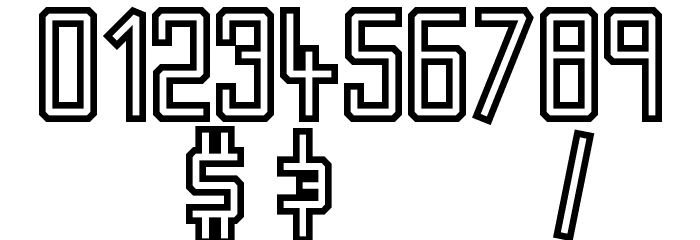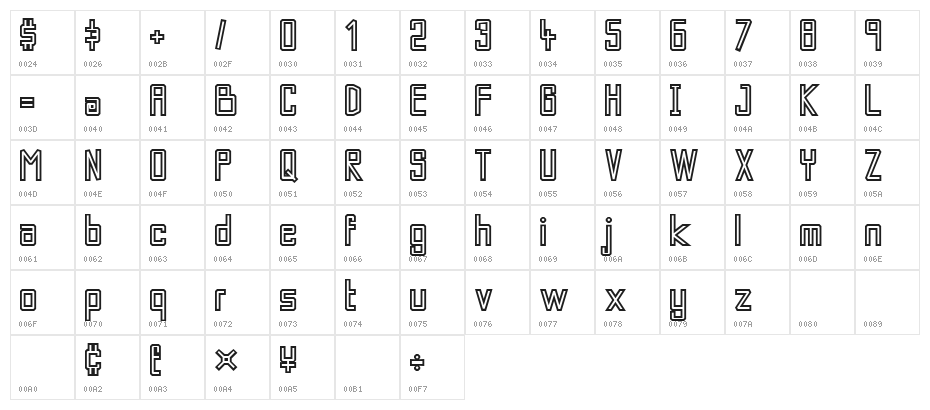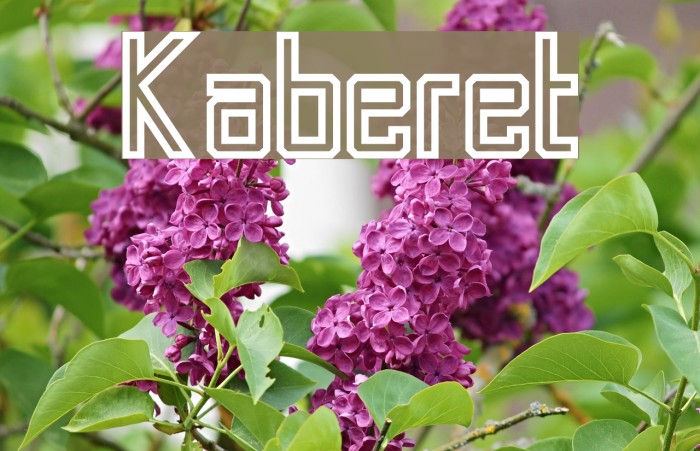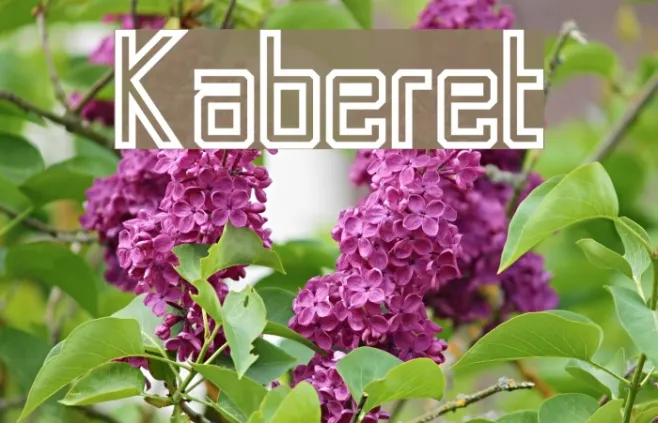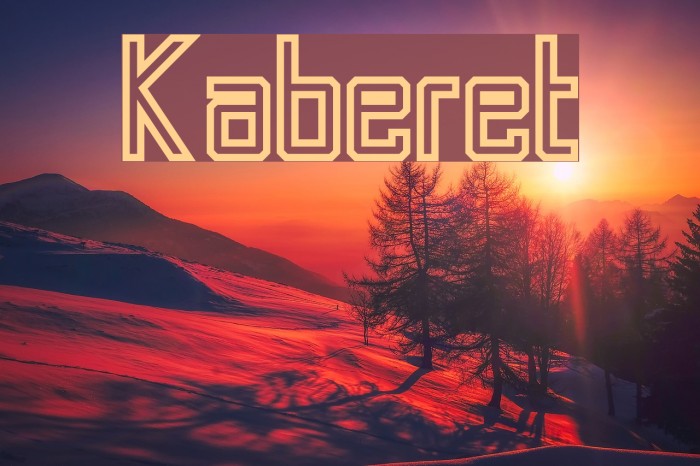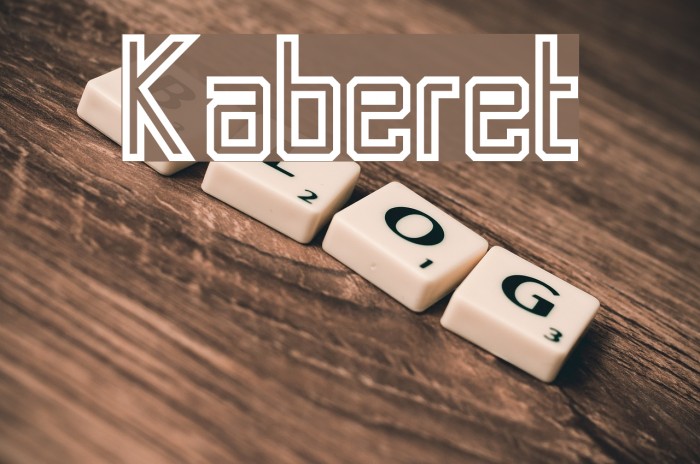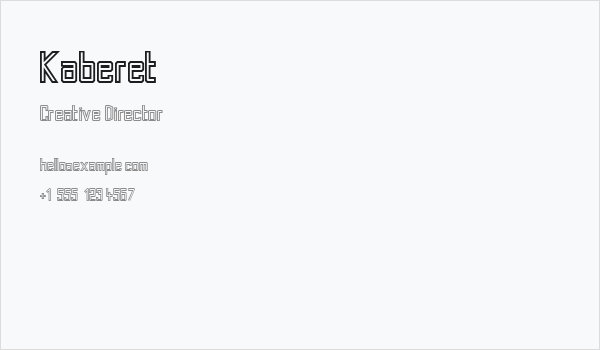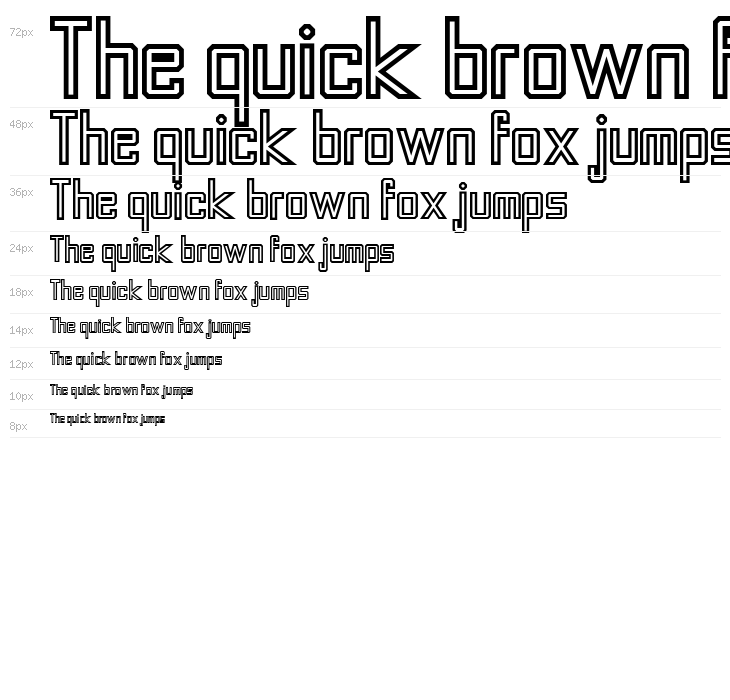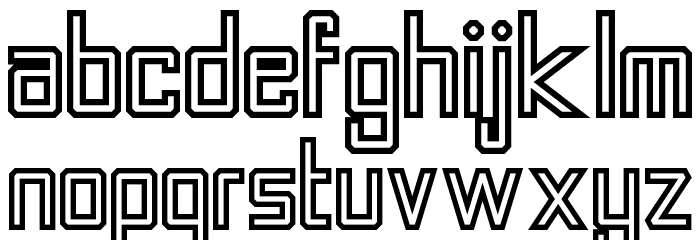
Kaberet Font
Kaberet Description
This font features a bold, geometric design with a double-line structure that creates a striking, outlined appearance. The characters are constructed with straight lines and sharp angles, giving them a modern and industrial feel. The uppercase and lowercase letters maintain consistent proportions, while the numerals and special characters follow the same stylistic approach. The font's unique outline style makes it highly distinctive and suitable for attention-grabbing designs.